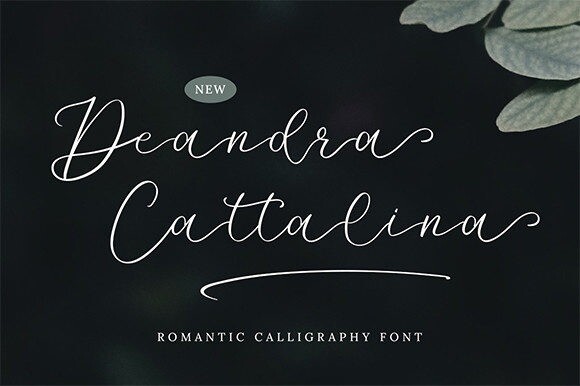
Deandra Cattalina Font
Deandra Cattalina Font is a sweet and romantic script font that easily combines legibility and authenticity!
This font is suitable to be used on weddings, photography, business cards, t-shirt designs, logos, magazines, quotes, fashion, watermarks, invitations, signatures.